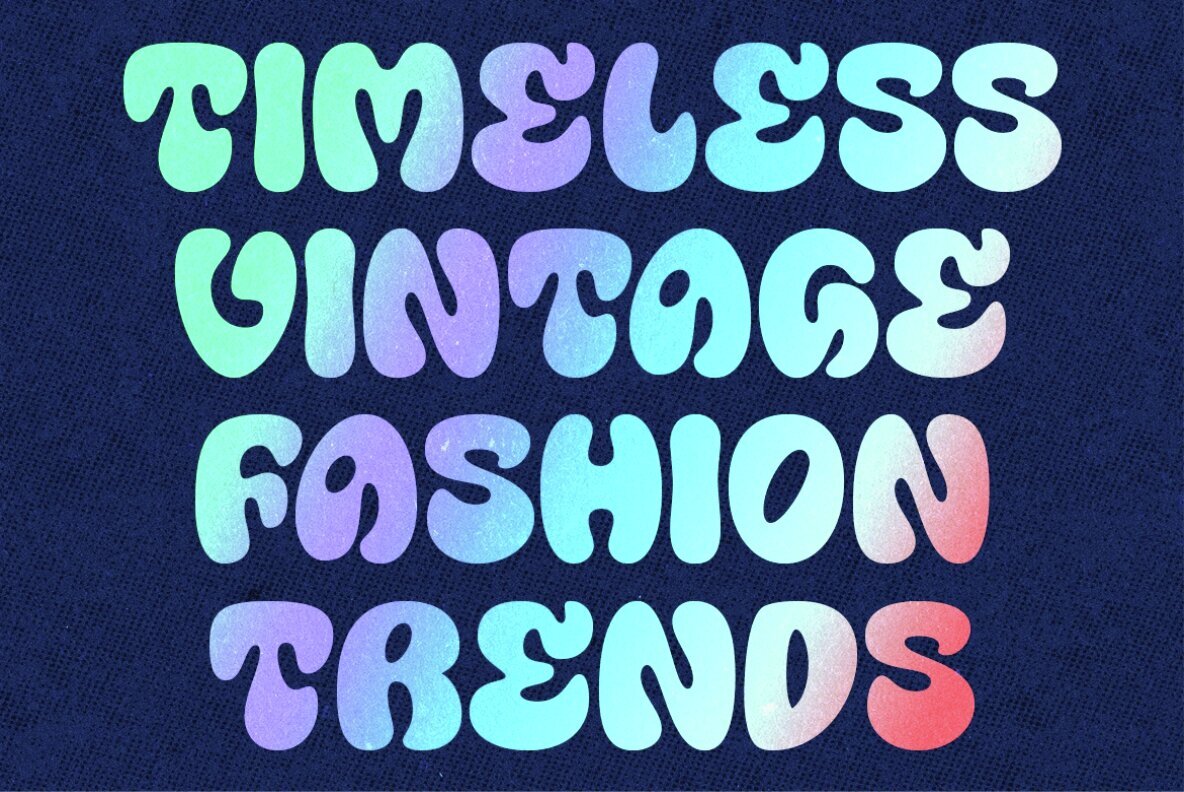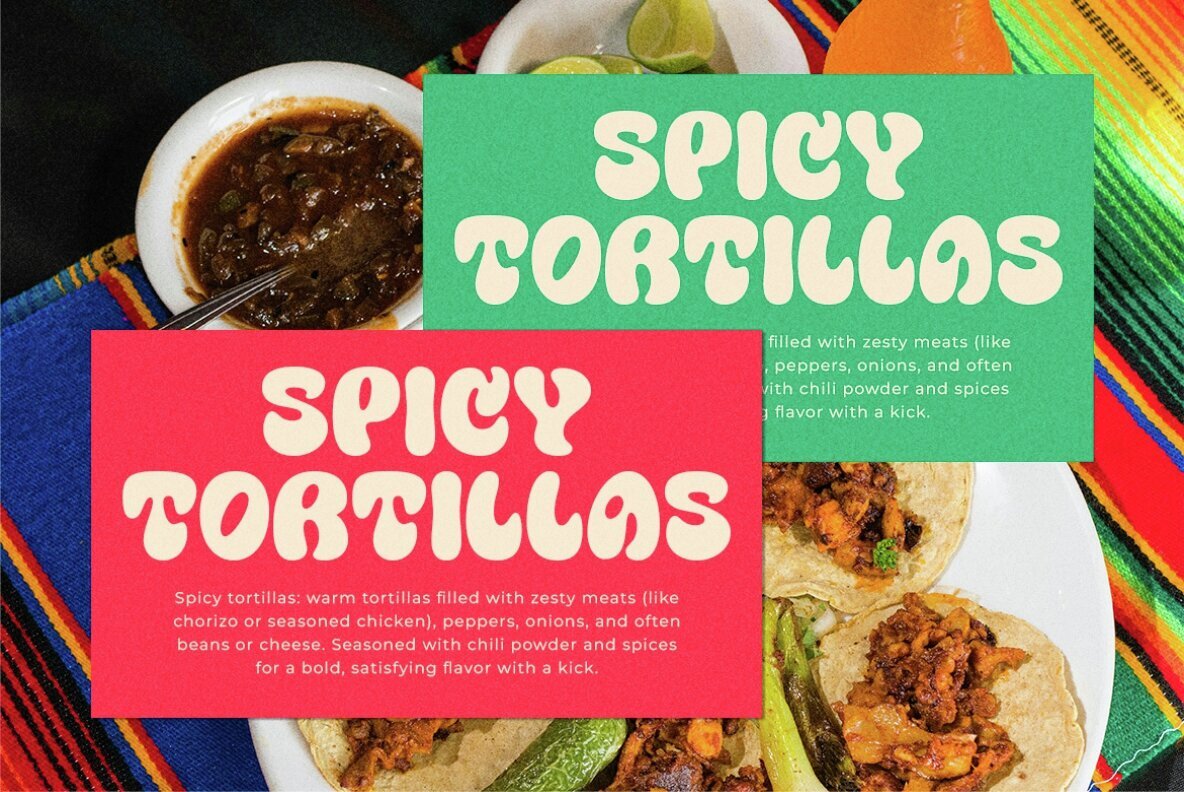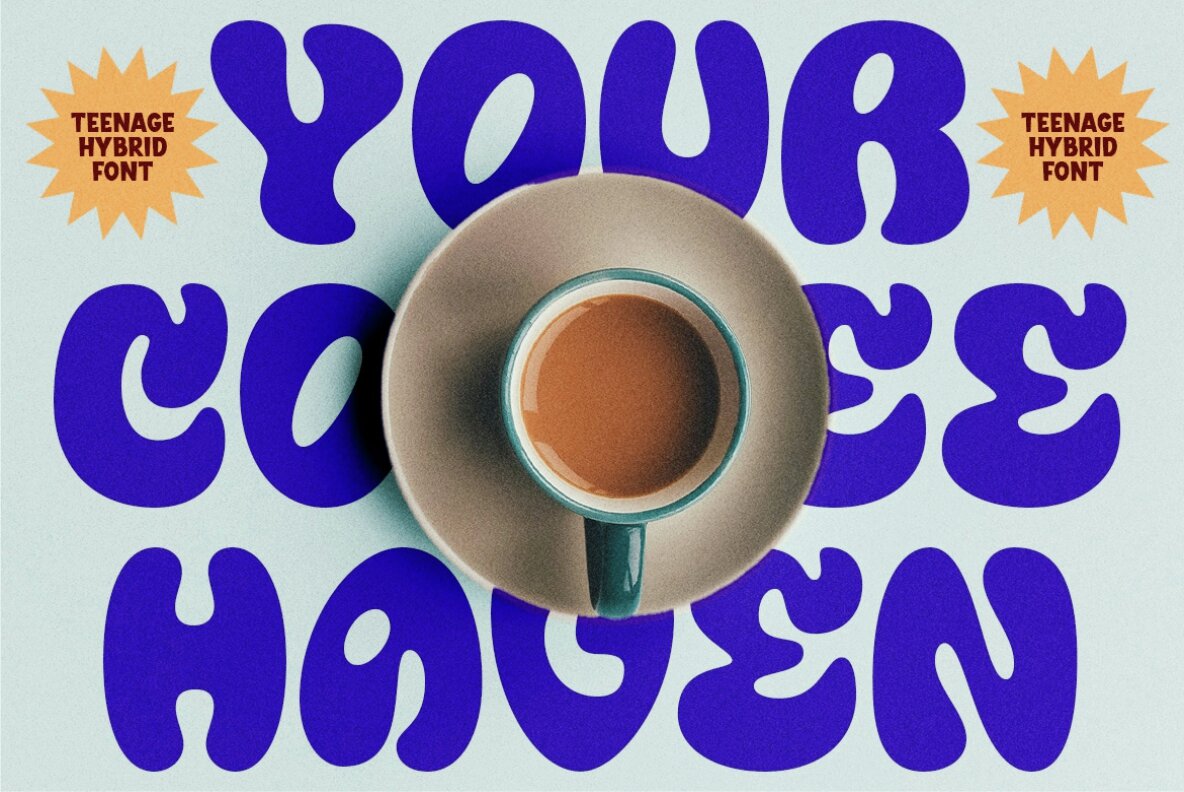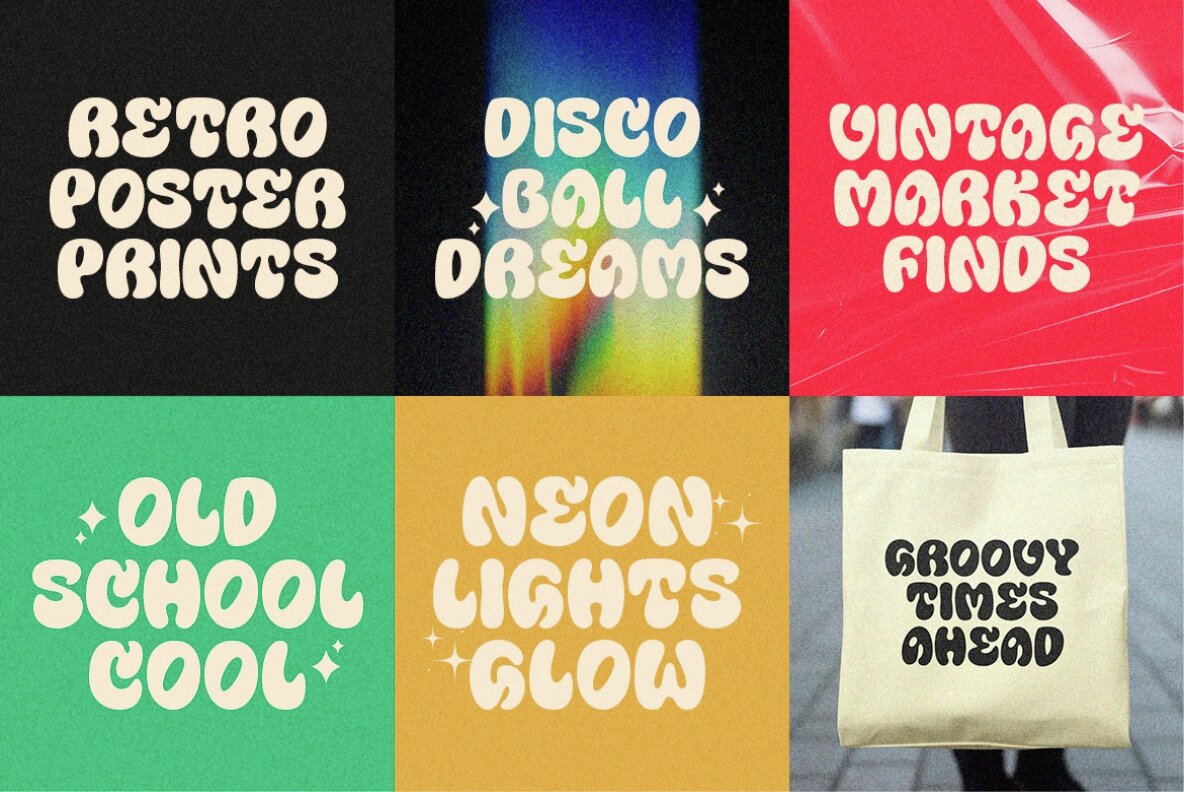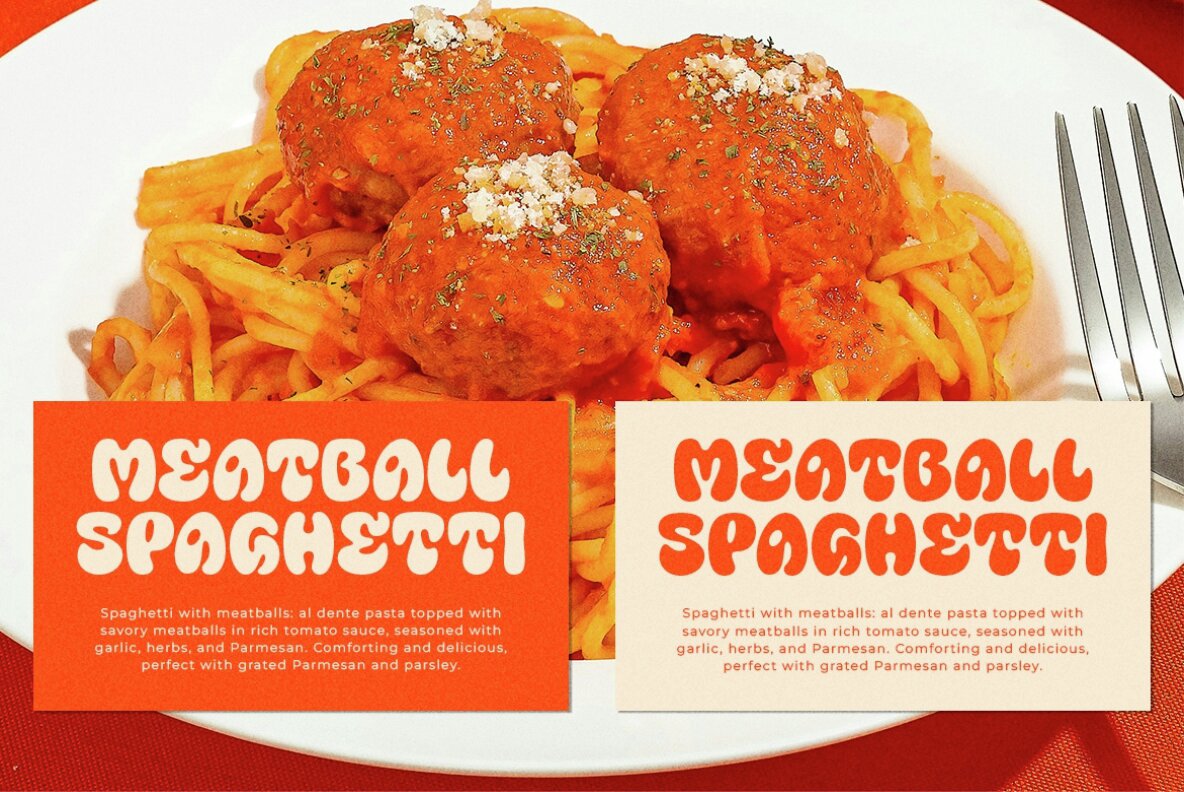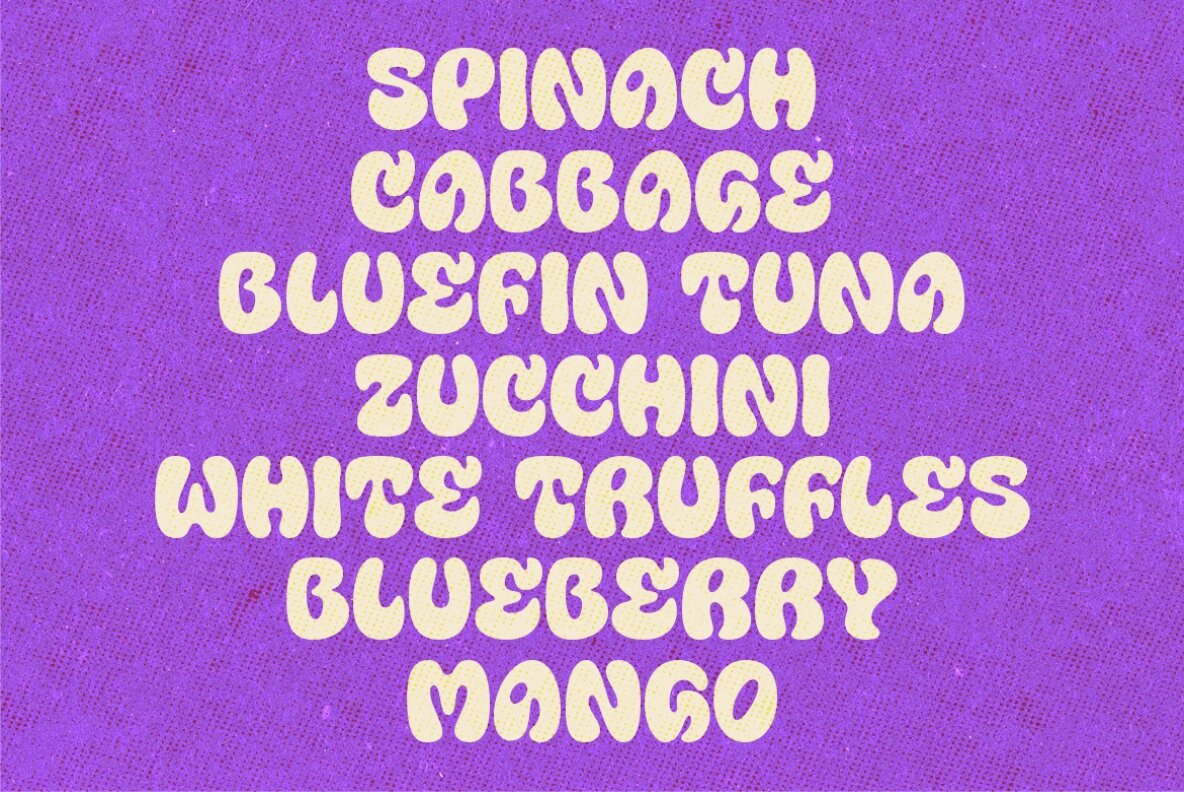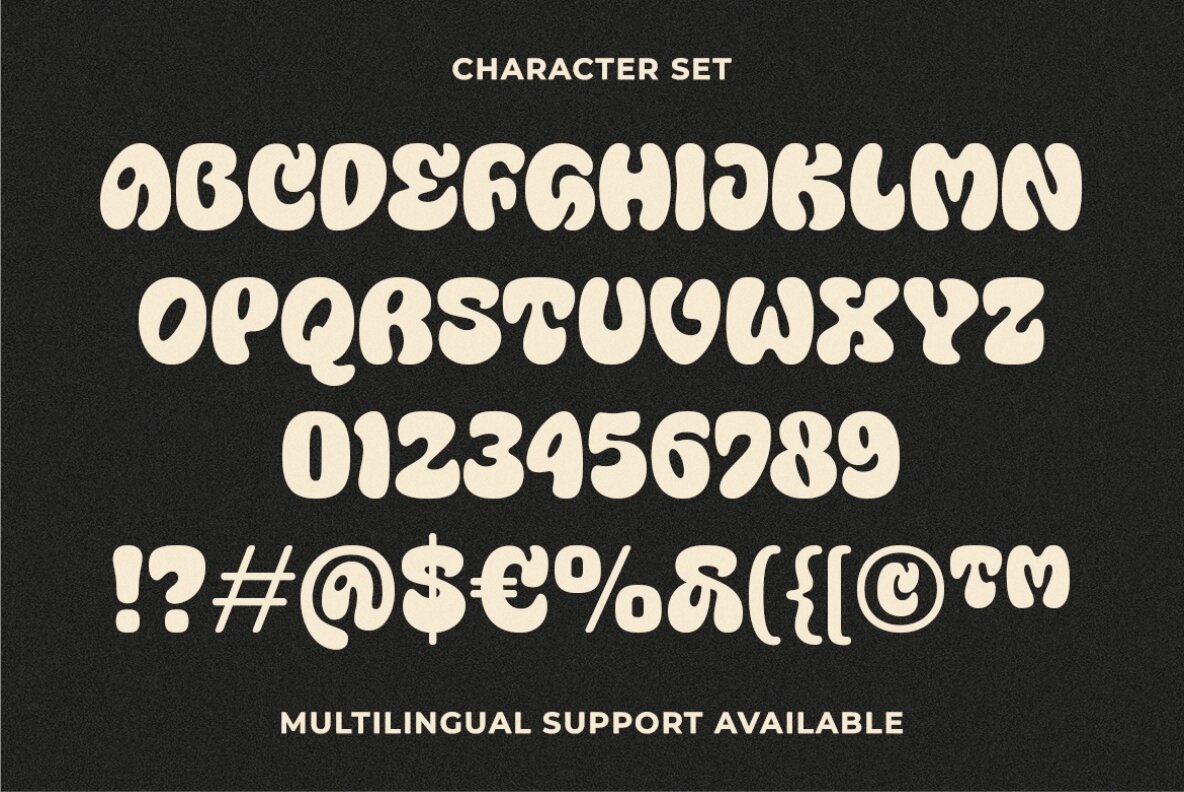
Teenage Hybrid Font
Teenage Hybrid
Teenage Hybrid is a groovy and retro font that combines elements of a bubble-like design with a bold and modern aesthetic. With its unique and eye-catching letterforms, Teenage Hybrid captures the essence of the retro era. The bubbly shapes of the letters give the font a fun and vibrant quality, reminiscent of groovy designs from the past. Ideal for display use, Teenage Hybrid is particularly well-suited for headlines, titles, and logos. Whether it's on posters, album covers, or branding materials, this font brings a retro coolness and a playful energy to your designs. Features: Uppercase, Lowercase, Numeral, Punctuation & Multilingual